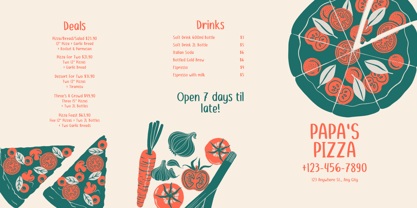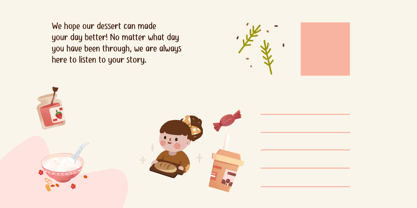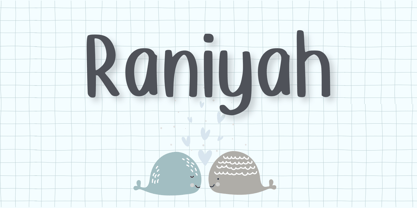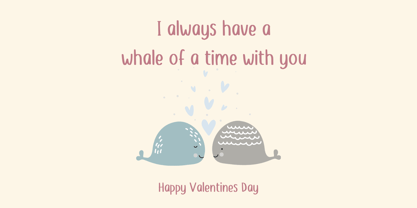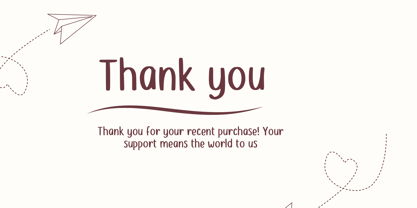
Raniyah
by Aisyah
The Raniyah Font Family was designed by Nur Aiysah Amalia and published by Aisyah. Raniyah contains 1 styles.
Introducing Raniya - a sleek, effortlessly stylish handwriting font that's the perfect addition to your creative toolkit. With its cool, casual aesthetic, Raniya renders an appealing, organic touch to notes, creative projects, or craft endeavors. It's also an ideal choice for lengthy notes, ensuring that every piece of content you create is not only legible but also engaging and aesthetically pleasing. Craft your creativity with Raniya, your go-to font for everything casual and creative.